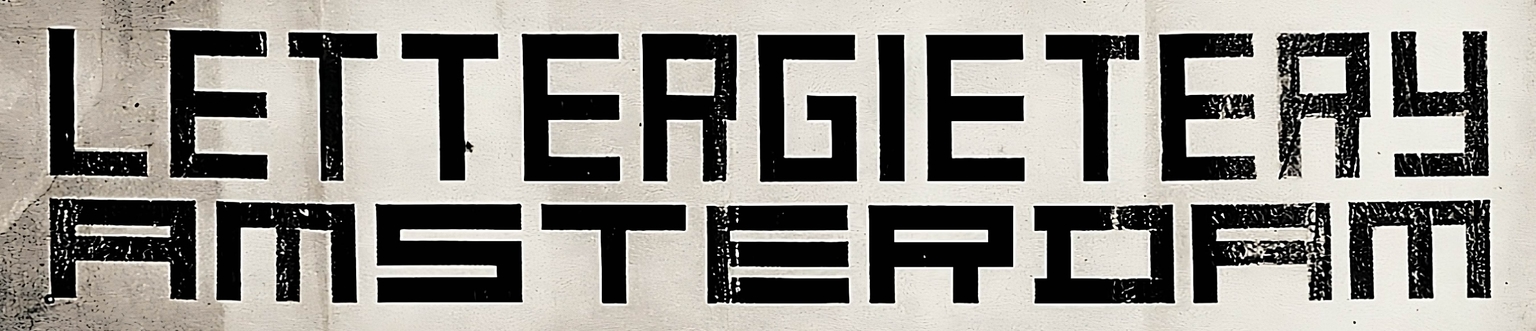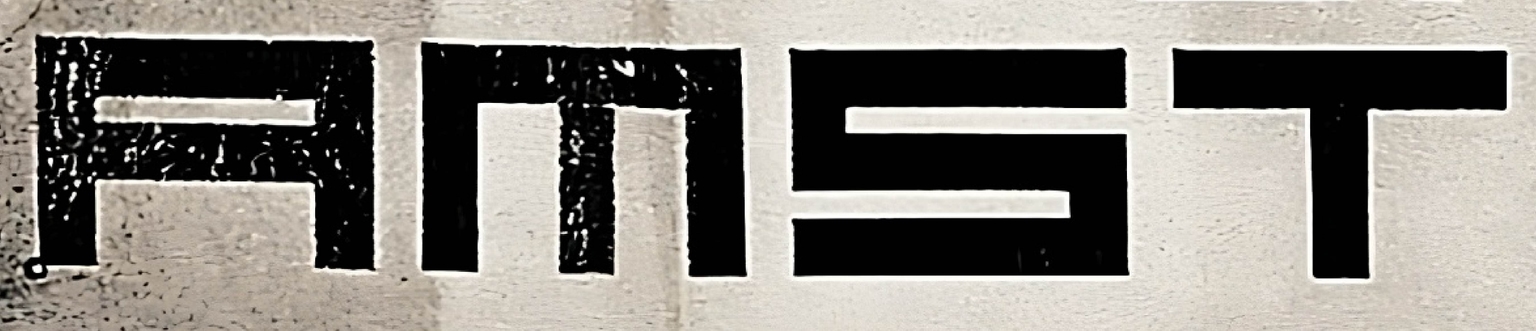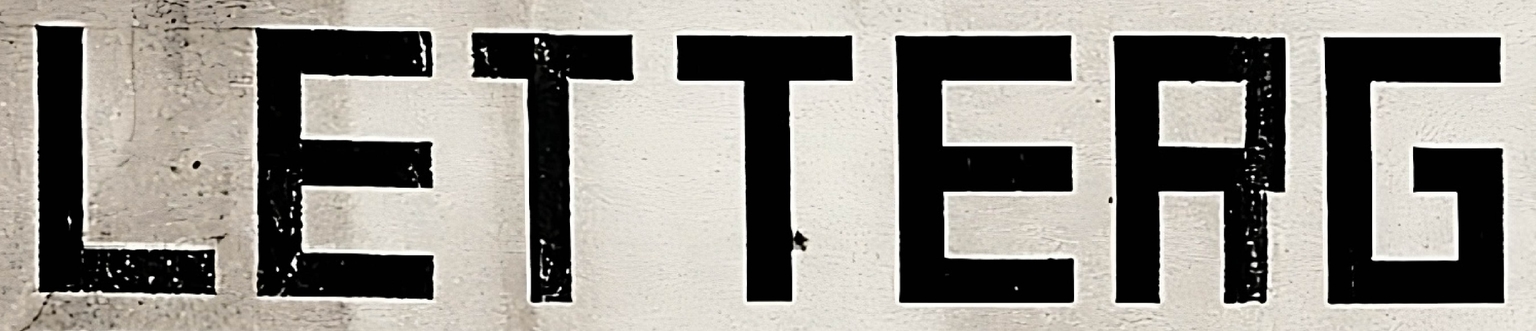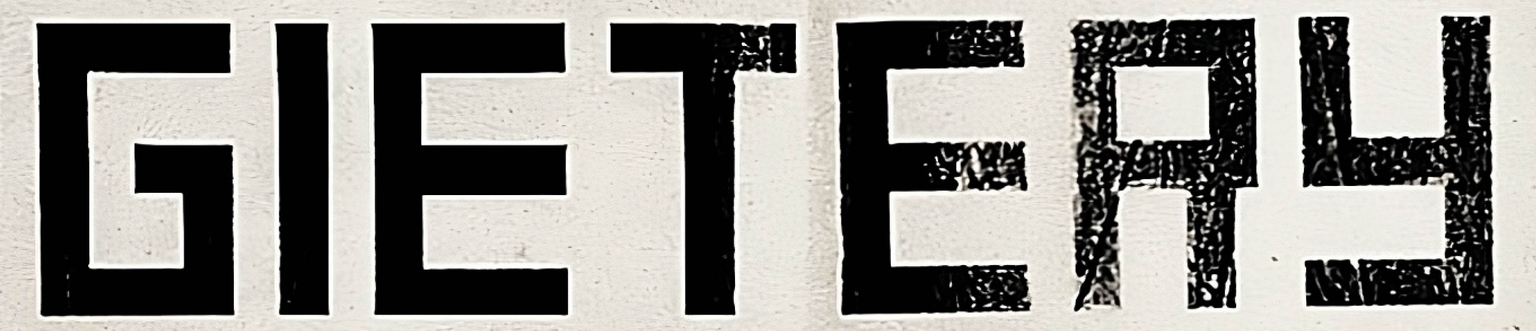
Locrian
The Locrian typeface is inspired by a set of alphabets designed by Theo van Doesburg and used in works for the Amsterdam Tetterode foundry and the firm Hagemeijer & Co.
Locrian is not a direct digitization of any of these designs but rather a typeface created by Ramiro Espinoza in the spirit of van Doesburg. The name of the font has no connection to the Dutch designer; instead, it refers to one of the Greek modes in Western music.
Locrian is a font with expanded proportions and minimalist details, suitable for design pieces that seek to connote links with specific periods of Modern design or architecture. While it can allude efficiently to 20th-century aesthetics or movements, due to its economical and geometric forms, Locrian can also be used to promote novel contemporary or technological aesthetics.